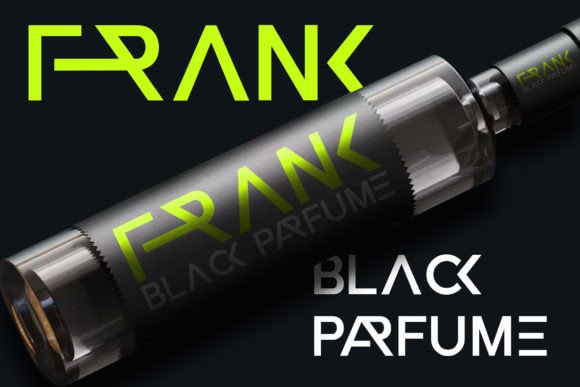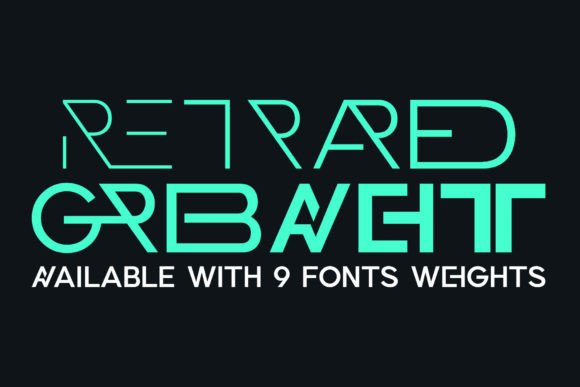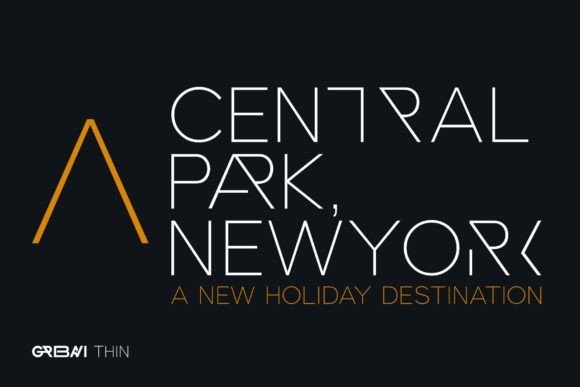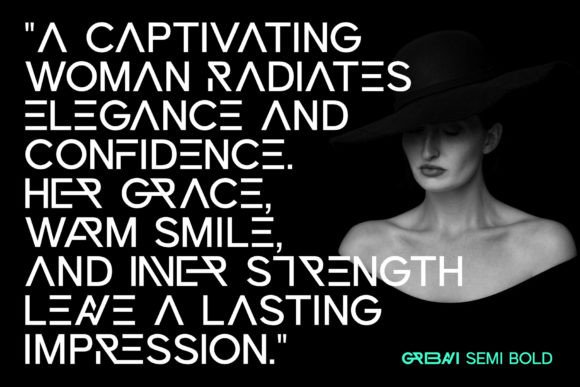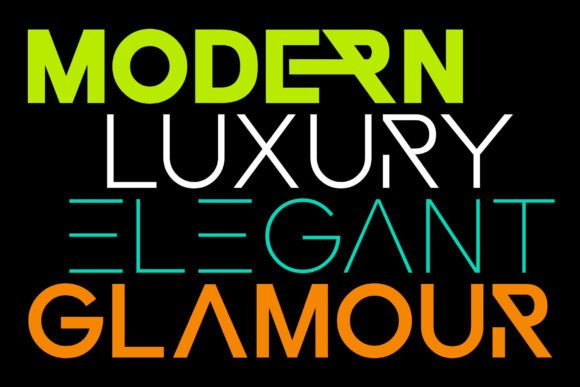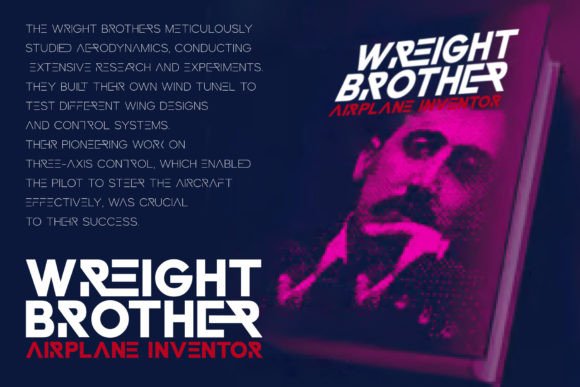
Grebavi: The Modern Logo Typeface Font for Creative Designers
In the world of typography, a well-designed font can make all the difference in creating a lasting impression. For designers and crafters looking for a modern and versatile font to elevate their creative projects, Grebavi is an excellent choice. This modern logo typeface font is designed to provide a fresh and sleek look to various design applications, from branding and logos to packaging and social media posts.
What is Grebavi?
Grebavi is a modern, well-balanced sans serif font that boasts a minimalist and iconic design. Its clean lines and simple shapes make it a perfect choice for designers seeking a font that exudes simplicity and elegance. The font’s unique character allows for easy creation of diverse variations and shapes in seconds by selecting from its ligature options, making it an excellent choice for designers looking to experiment with different styles.
Key Features of Grebavi
- Modern and Minimalist Design: Grebavi’s sleek design makes it perfect for modern brands and creative projects that require a fresh and contemporary look.
- Versatile and Adaptable: This font is designed to work well in various design applications, from logos and branding to packaging and social media posts.
- Ligature Options: Grebavi’s ligature options allow designers to create unique and diverse variations of the font, making it easy to experiment with different styles.
- High Legibility: Despite its minimalist design, Grebavi maintains high legibility, making it perfect for use in a wide range of design applications.
Use Cases for Grebavi
Grebavi’s versatility makes it an excellent choice for various design applications, including:
- Branding Projects: Create a lasting impression with Grebavi’s modern and sleek design, perfect for logos, business cards, and letterheads.
- Poster Designs: Add a touch of elegance to your poster designs with Grebavi’s clean lines and simple shapes.
- Social Media Posts: Elevate your social media presence with Grebavi’s fresh and modern design, perfect for creating engaging posts and stories.
- Advertisements: Grab attention with Grebavi’s bold and sleek design, perfect for creating eye-catching advertisements.
- Product Packaging: Add a touch of sophistication to your product packaging with Grebavi’s elegant design.
- Product Designs: Create stunning product designs with Grebavi’s versatile and adaptable font.
- Labels: Use Grebavi to create elegant and readable labels for your products or packaging.
- Photography: Add a touch of class to your photography with Grebavi’s sleek design, perfect for creating watermarks or captions.
- Invitations: Create stunning invitations with Grebavi’s elegant design, perfect for weddings, parties, or special events.
- Stationery: Elevate your stationery with Grebavi’s modern and sleek design, perfect for creating business cards, letterheads, or notebooks.
Why Choose Grebavi?
In a world where typography plays a crucial role in design, Grebavi stands out as a modern and versatile font that can elevate your creative projects. Its unique character, ligature options, and high legibility make it an excellent choice for designers and crafters looking for a font that can adapt to various design applications.
Whether you’re a professional designer or a crafter looking to add a touch of elegance to your projects, Grebavi is an excellent choice. Its modern and minimalist design makes it perfect for creating stunning branding projects, logos, poster designs, social media posts, and more.
| Font Name | Grebavi | Modern Logo Typeface Font |
| Author | Sealoung |
In conclusion, Grebavi is a modern logo typeface font that offers a fresh and sleek design, perfect for creative designers and crafters. Its versatility, ligature options, and high legibility make it an excellent choice for various design applications. Whether you’re looking to create stunning branding projects, logos, poster designs, or social media posts, Grebavi is an excellent choice. So why wait? Explore the world of Grebavi and elevate your creative projects with this modern and iconic font.